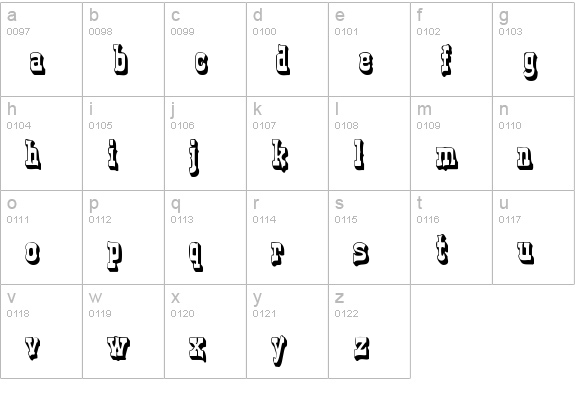
WesternShadow Font Details
Introducing WesternShadow, a font that effortlessly captures the essence of the Wild West with its rugged and adventurous appeal. This font is the perfect embodiment of the untamed spirit that defines the Western genre, with its bold and striking letterforms that evoke images of dusty saloons, wide open prairies, and daring gunfights. WesternShadow is a versatile typeface that can be used for a wide range of projects, from vintage-inspired branding and signage, to movie posters and book covers. Its unique design combines the classic elegance of traditional Western typography with a contemporary twist, making it a standout choice for anyone looking to add a touch of authentic Western flair to their designs. What makes WesternShadow even more enticing is that it is completely free to download at FontsMarket.com. Yes, you read that right – this exceptional font is freely available for you to use in any personal or commercial projects. Whether you're a designer, a writer, or simply someone who appreciates the beauty of well-crafted typography, WesternShadow is a must-have addition to your font collection. So, saddle up and embark on a typographic adventure with WesternShadow. Download it today from FontsMarket.com and unleash the Wild West spirit in your designs.